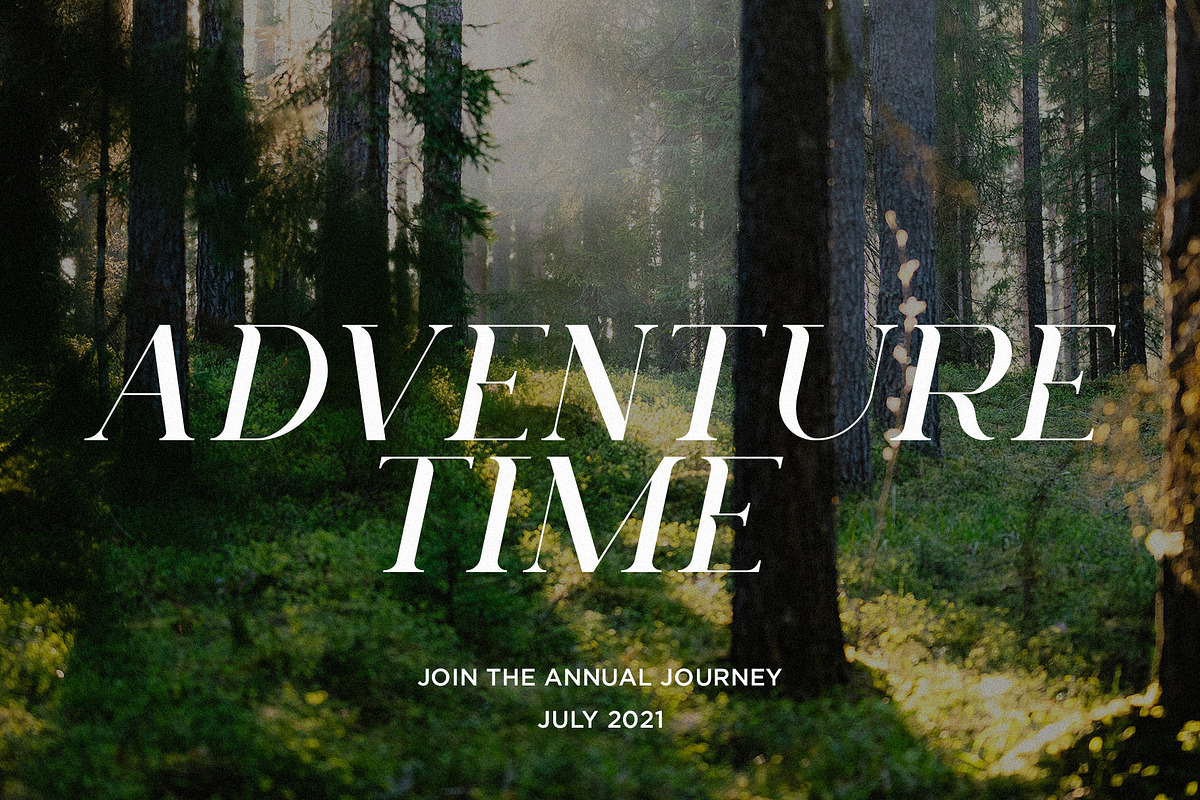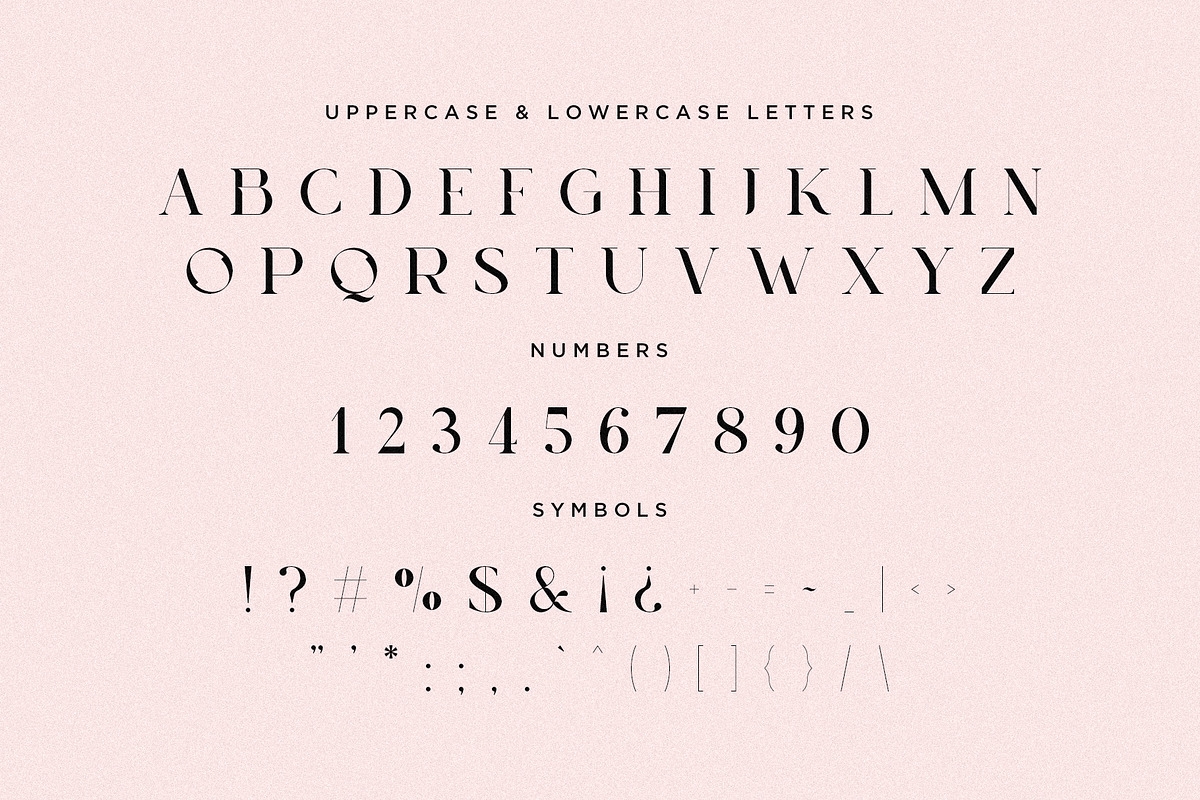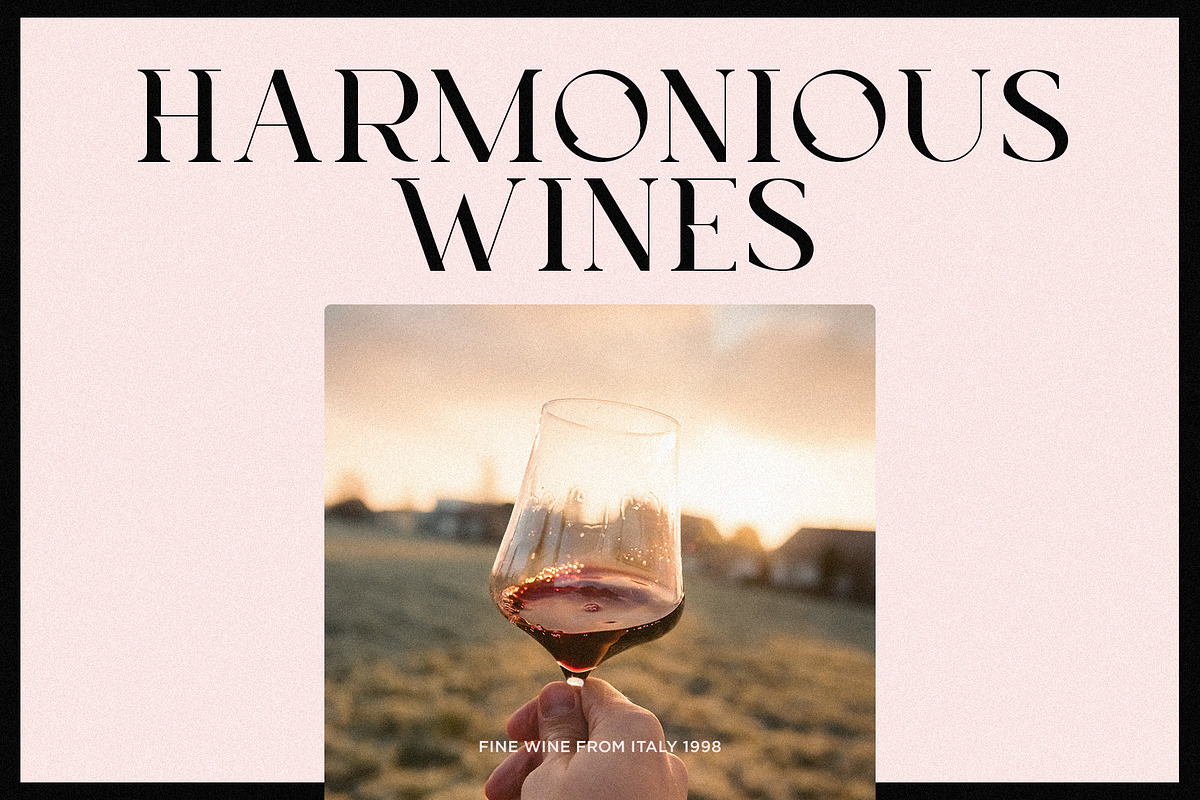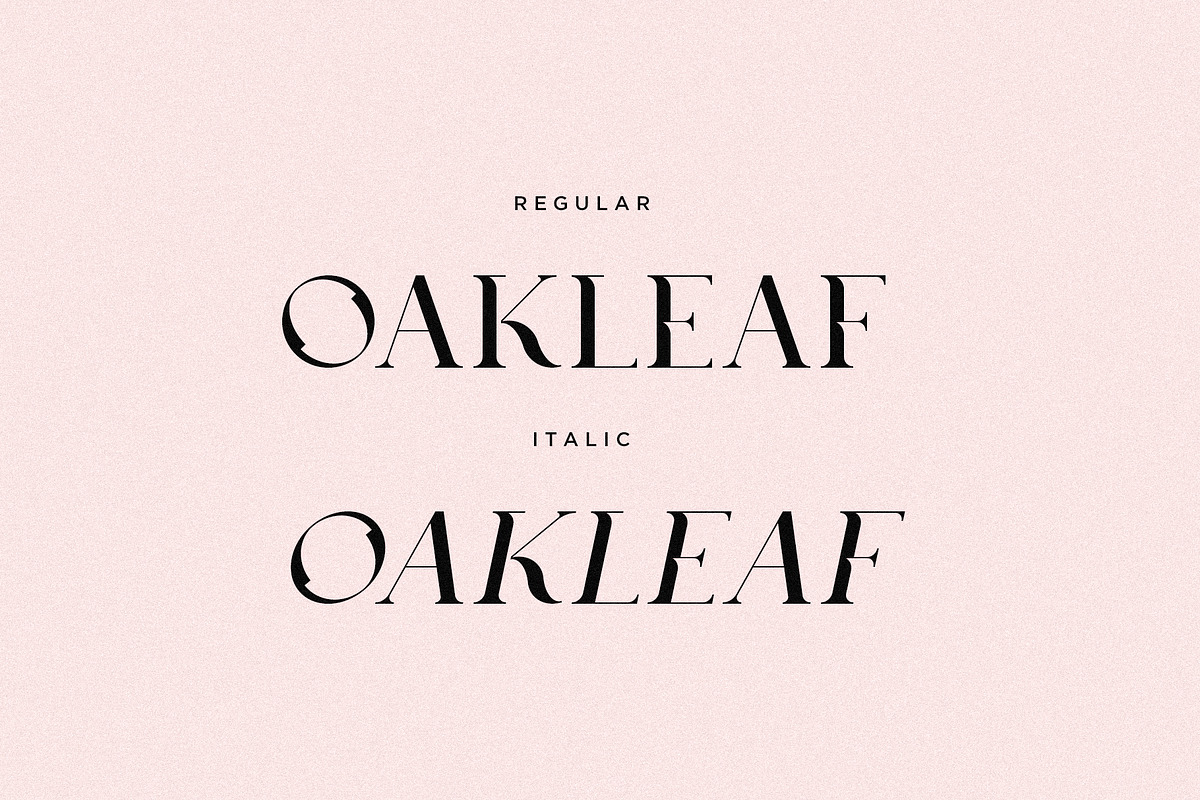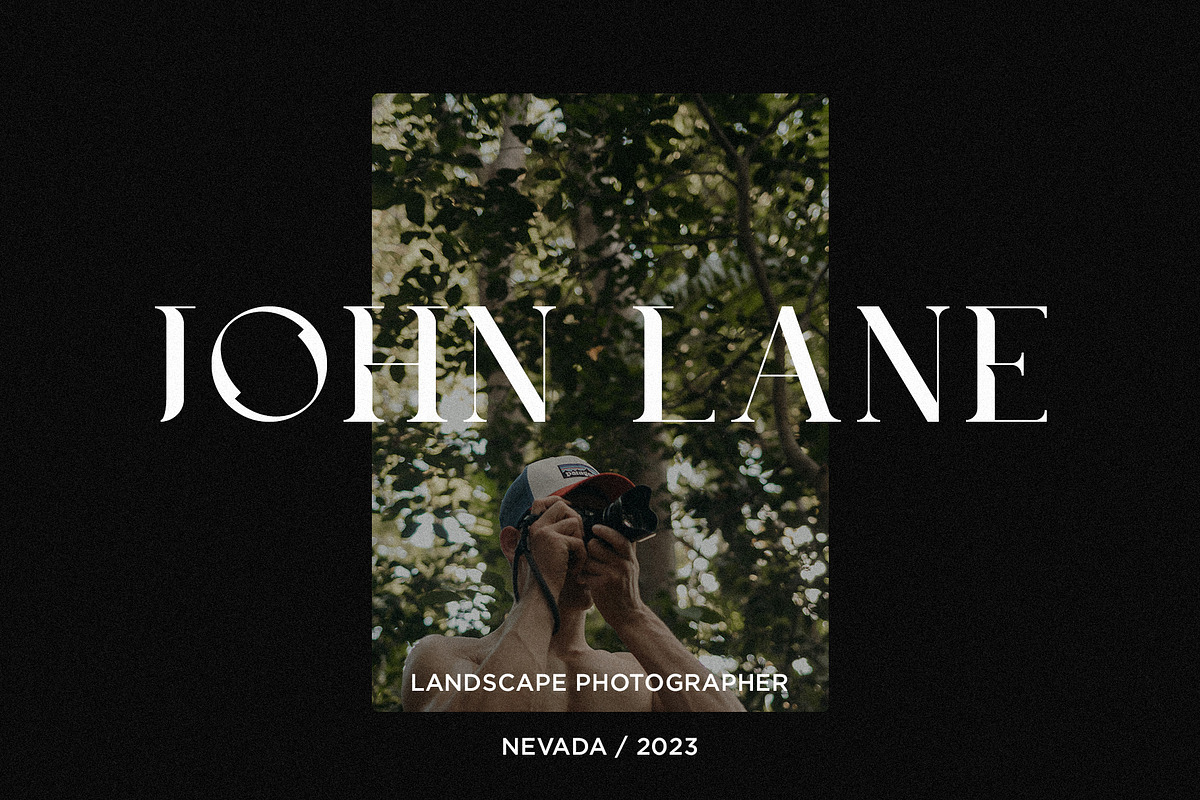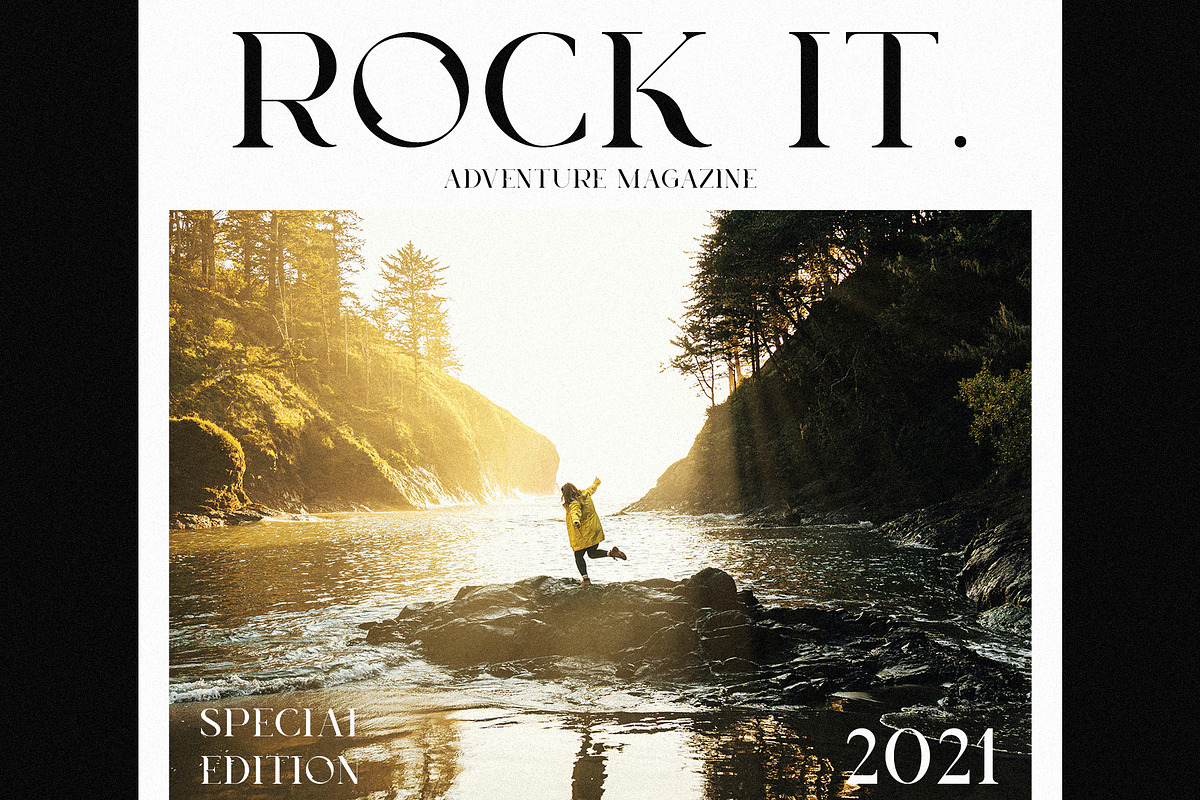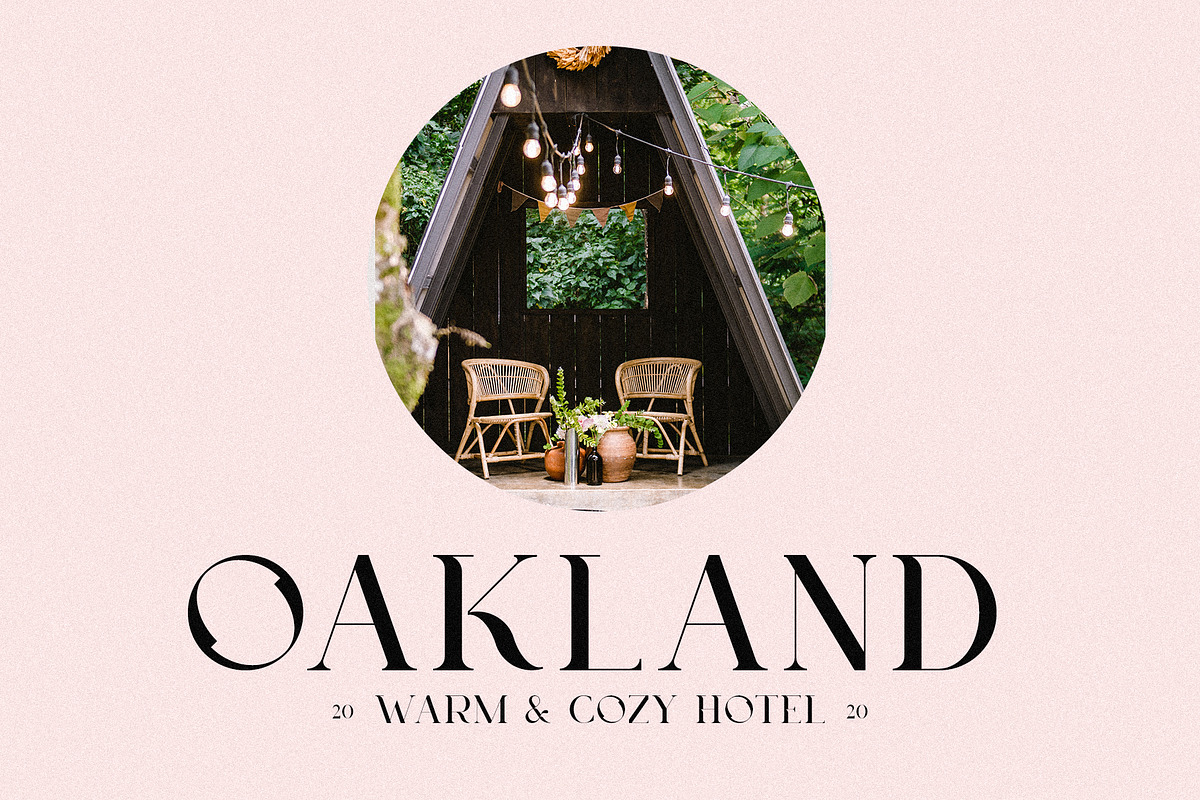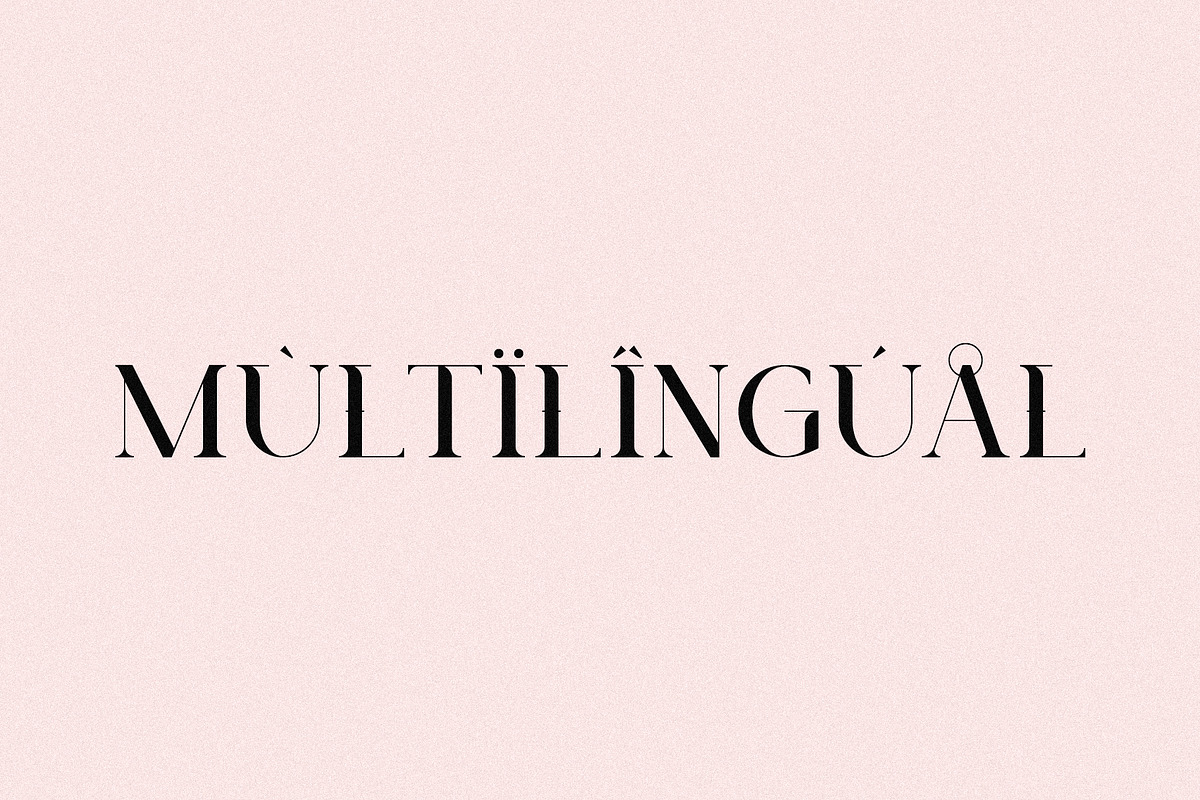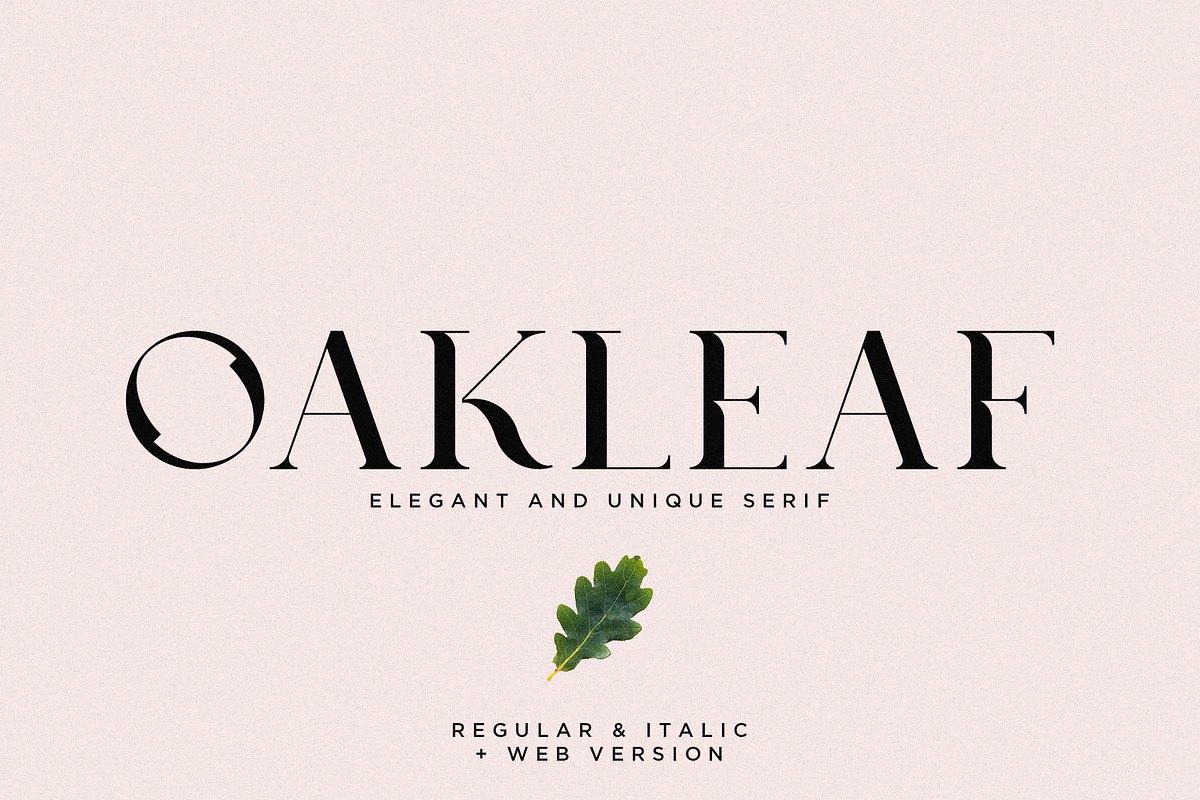
Oakleaf - Elegant & Unique Serif
Oakleaf is an elegant & unique serif. Oakleaf has a classic style of serif with unique curves to it. The typeface is easy to remember and can be easily used for headers, logos, labels, banners, etc. Also could be paired with sans serifs & scripts.
Oakleaf Features:
- 2 versions: Regular, Italic
- Letters